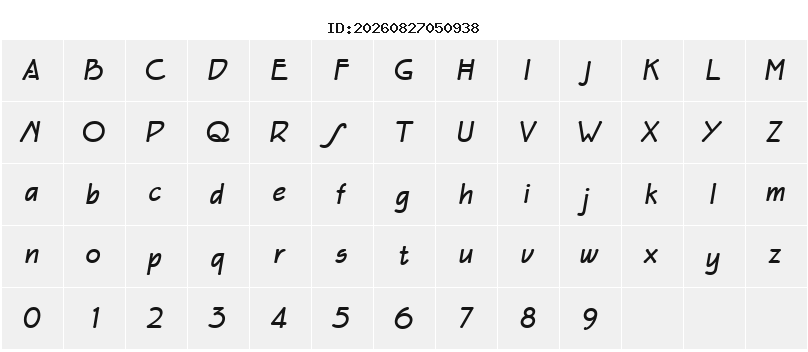
614-CAI978 Preview
About 614-CAI978.ttf
614-CAI978.ttf is a modern, elegant sans-serif font designed for ultimate readability and visual harmony. Perfect for branding, headlines, web design, and print materials.